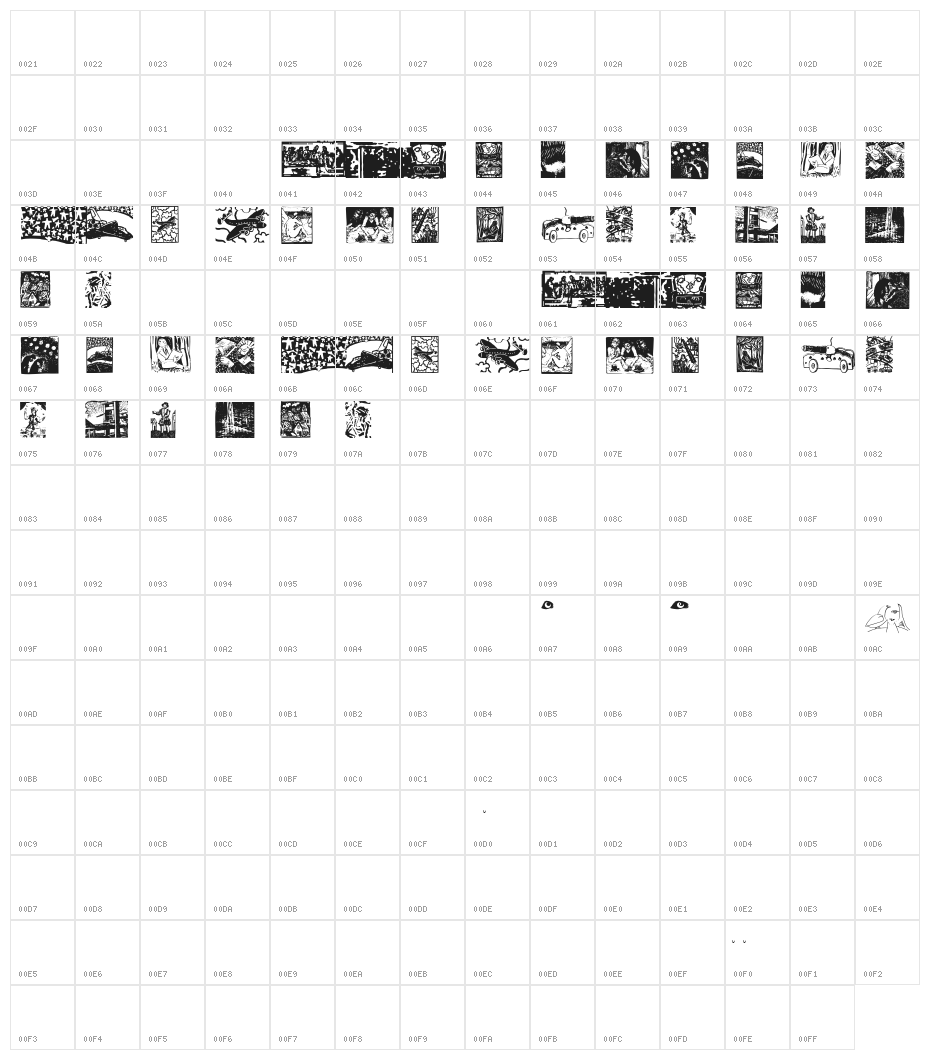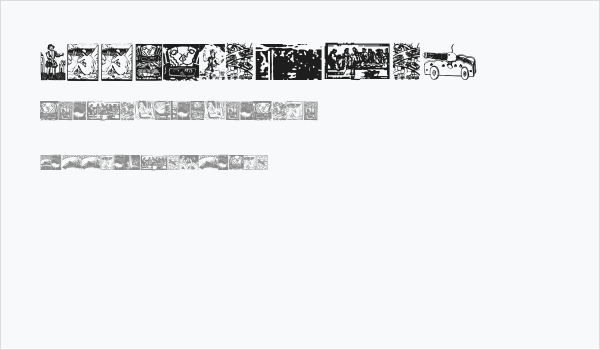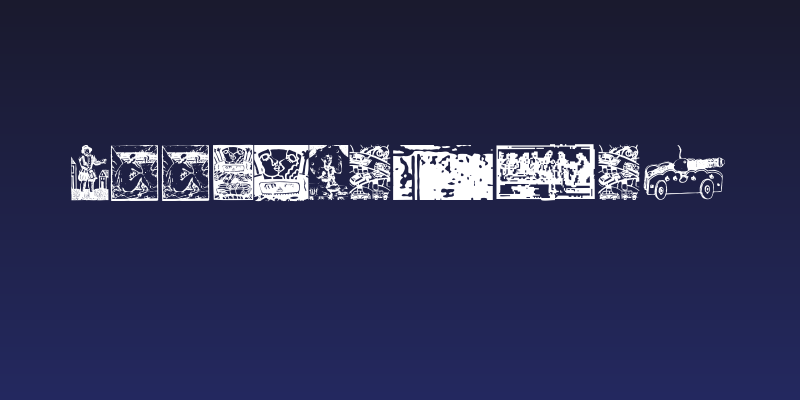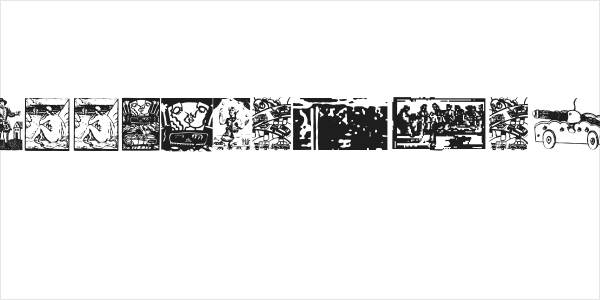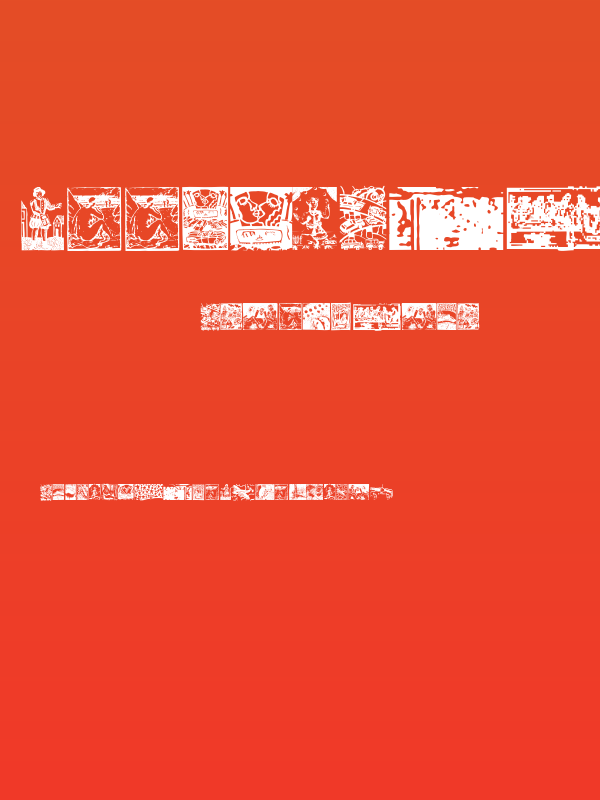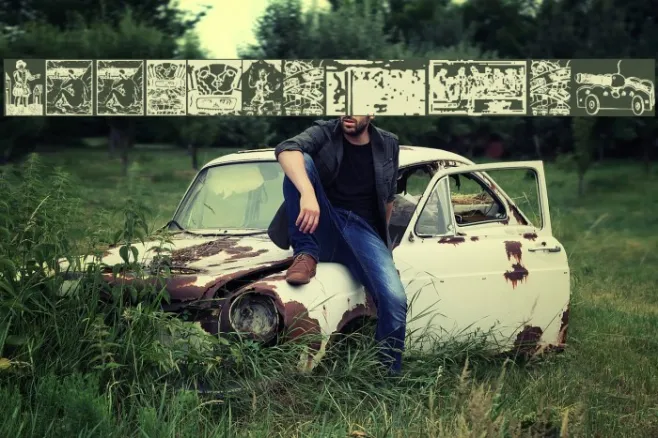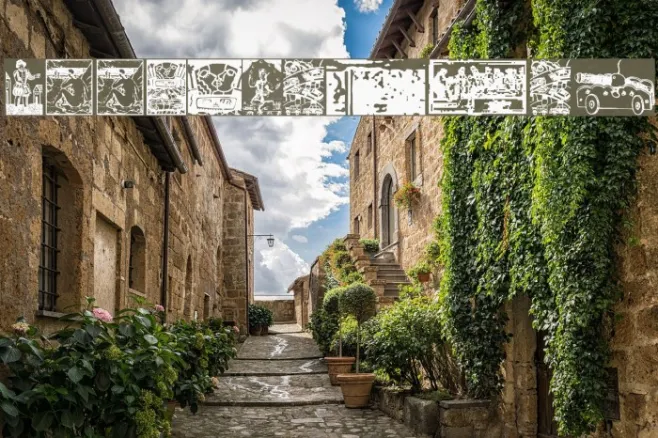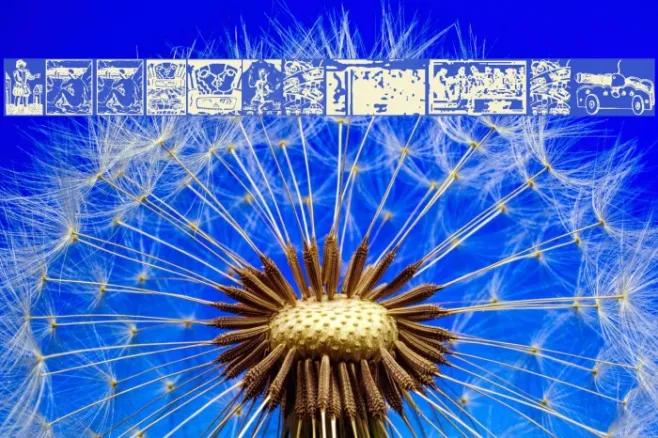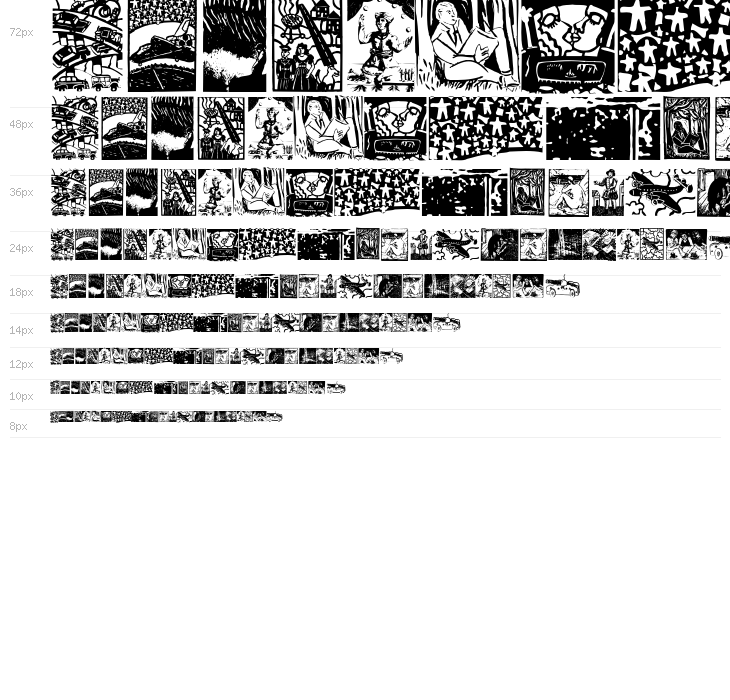
WoodcutBats Font
WoodcutBats Description
A collection of highly detailed, black-and-white woodcut-style illustrations, each contained within a square frame, featuring a variety of scenes, objects, and figures. The set is decorative and artistic, with strong contrast and intricate linework reminiscent of traditional printmaking.
| Overall Style | Decorative, Artistic, Vintage |
| Use Case | Decorative elements, Illustrative accents, Themed graphics |
| Proposed Projects | Book covers, posters, art projects, album artwork, decorative borders, themed invitations. |